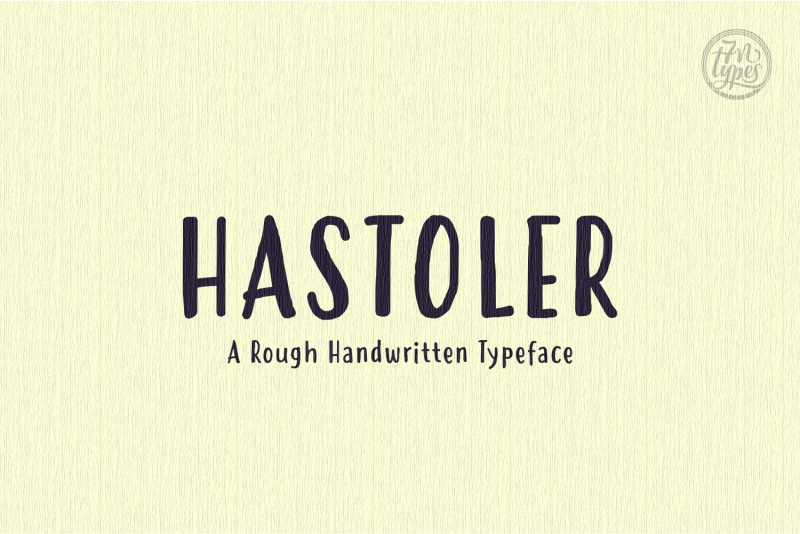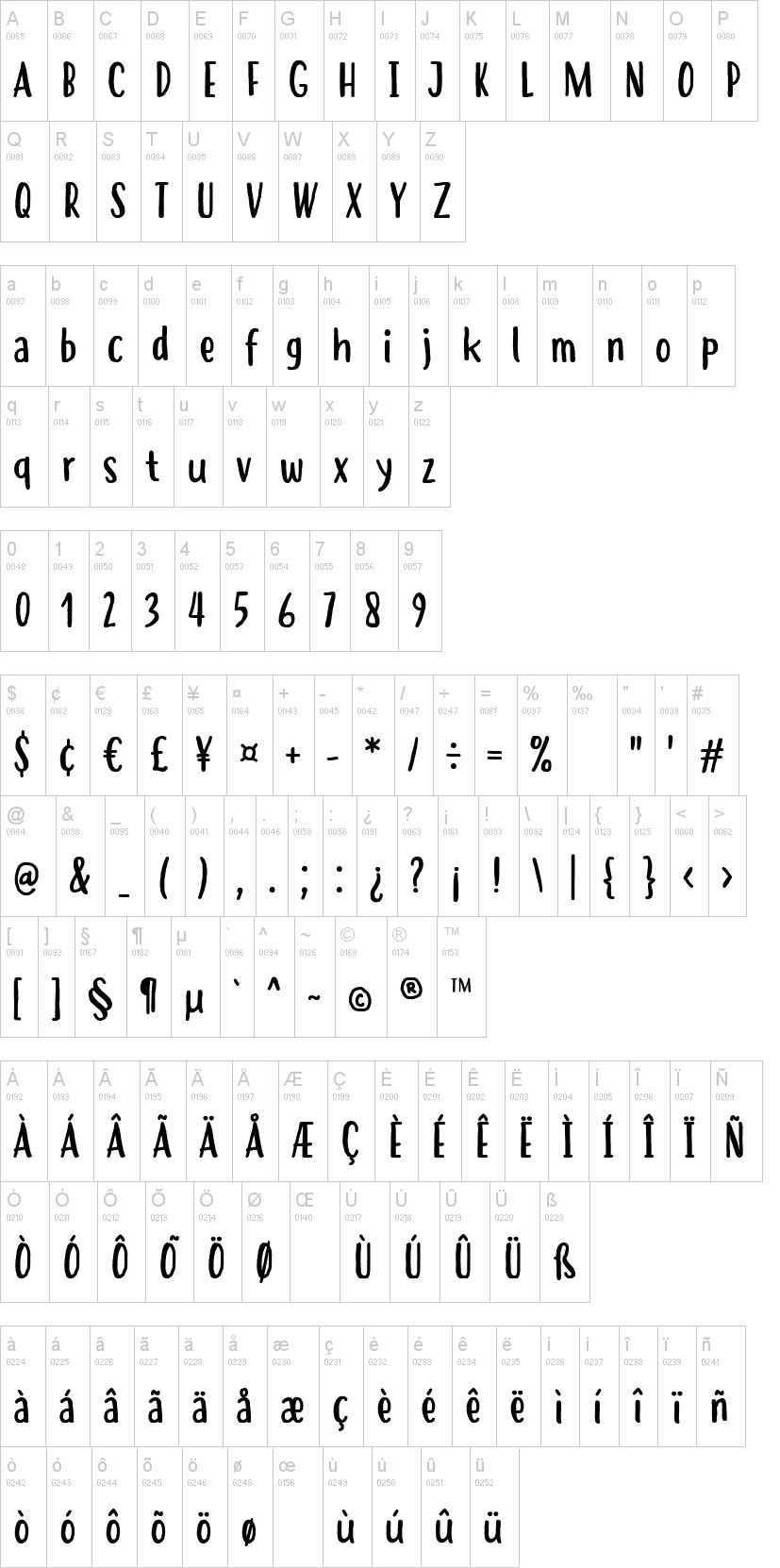
Hastoler Regular-Italic.otfNote of the authorThe inconsistency in the thickness in the letters, combined with the lines that are not straight, make Hastoler Font a fun hand-painted feeling. Lets say, Hastoler typeface is a rough handwritten font with a playful feeling.
Because the font has a serif base, it is very clear to read, which makes it a great font for titles or headlines, for ads, in another media that need a natural hand-drawn typeface.